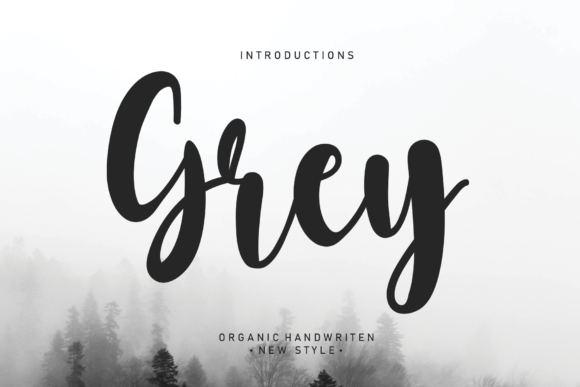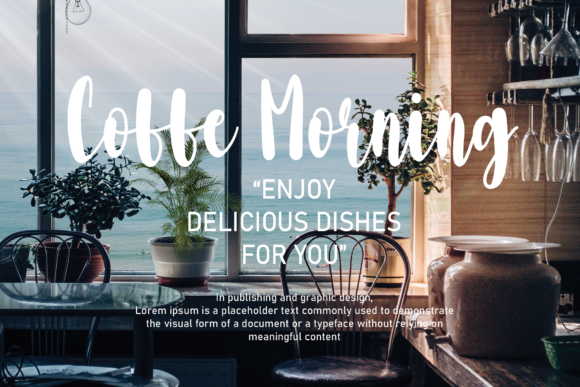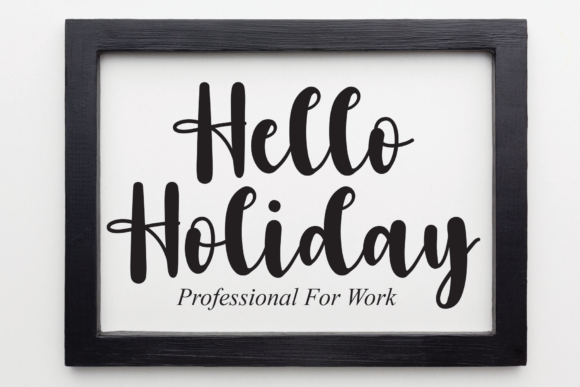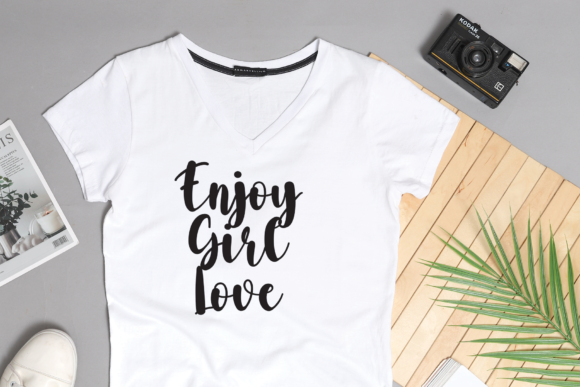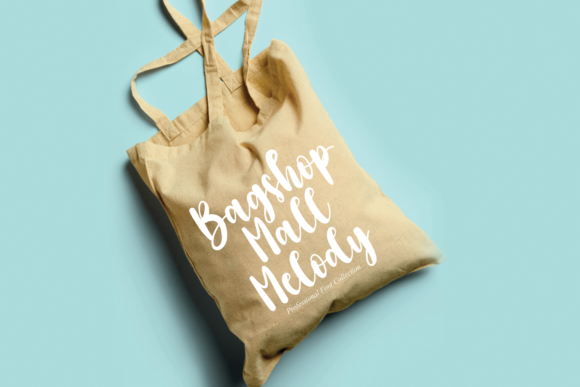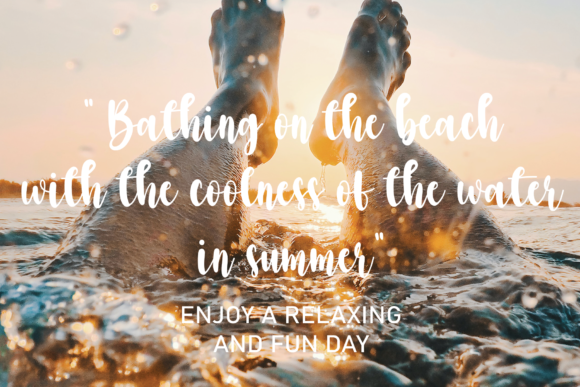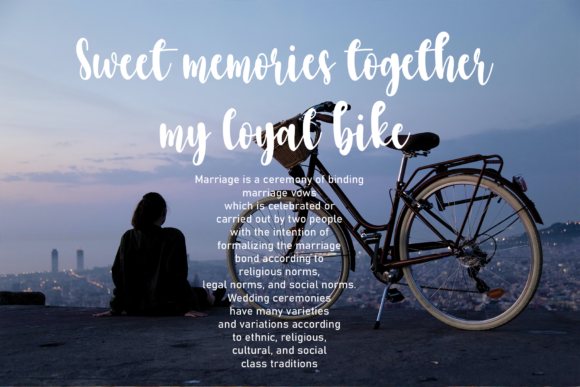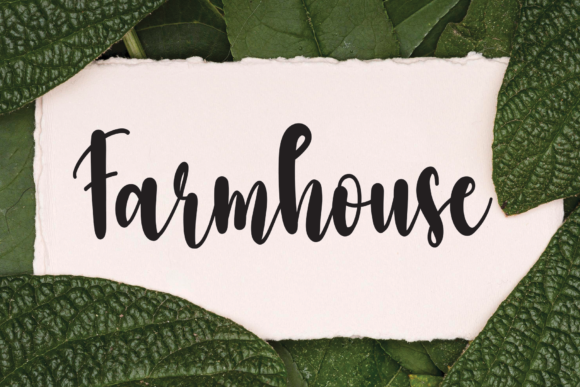
Grey Font
About Grey Font
Grey is a beautiful, well balanced and stylish script font. It is defined by smooth curves and is perfect for fashion branding or editorial designs. Add it confidently to your projects, and you will love the results.